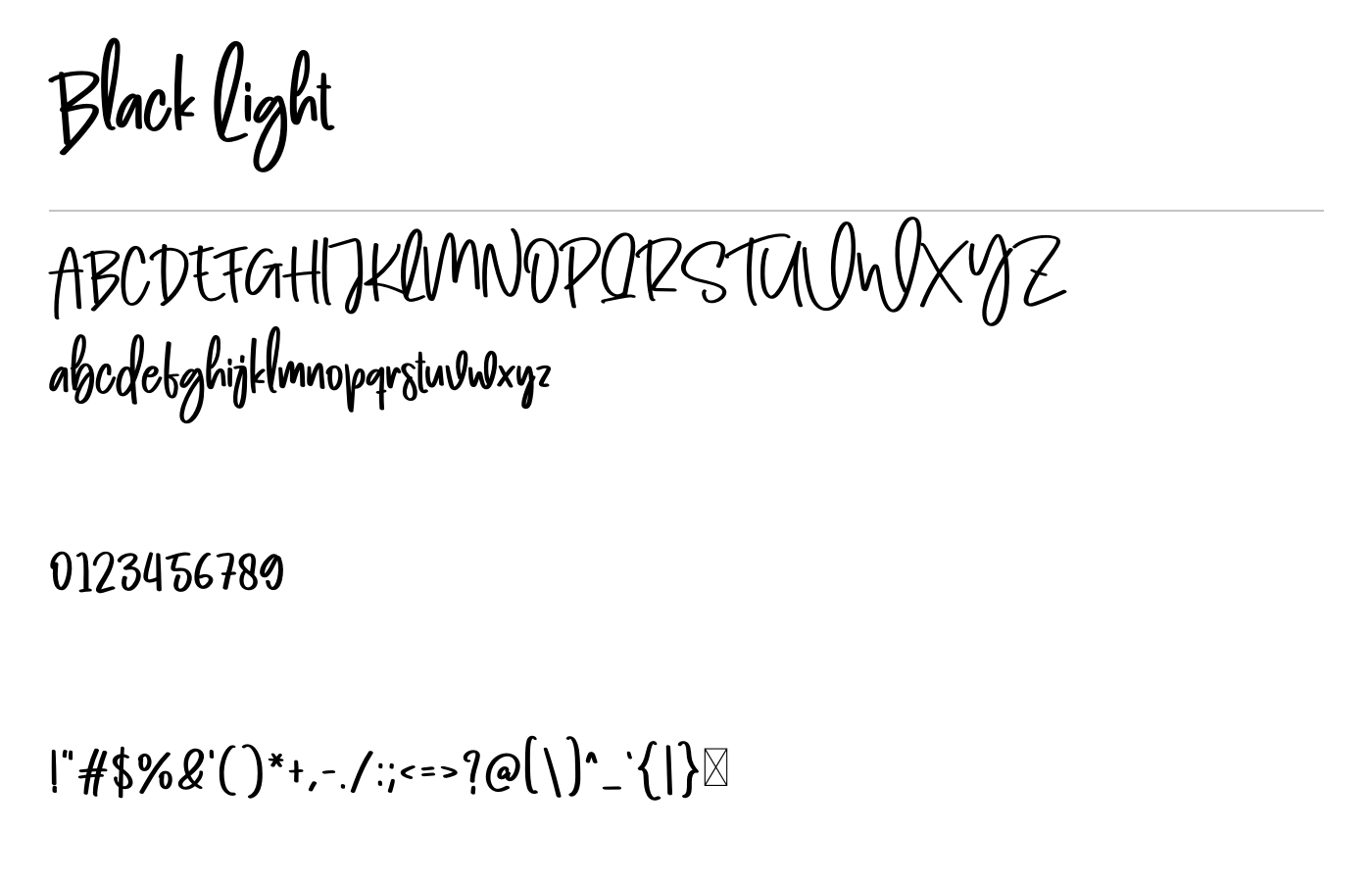
Black Light is a playful, hand-drawn script font with a casual and lively feel, featuring tall, narrow letterforms and a slightly uneven stroke that adds personality. Its informal style makes it perfect for creative projects, branding, and designs that want to convey friendliness and energy. This font works well for headlines, logos, and social media graphics where a unique, handwritten touch is desired.
Black Light Font
About Black Light Font